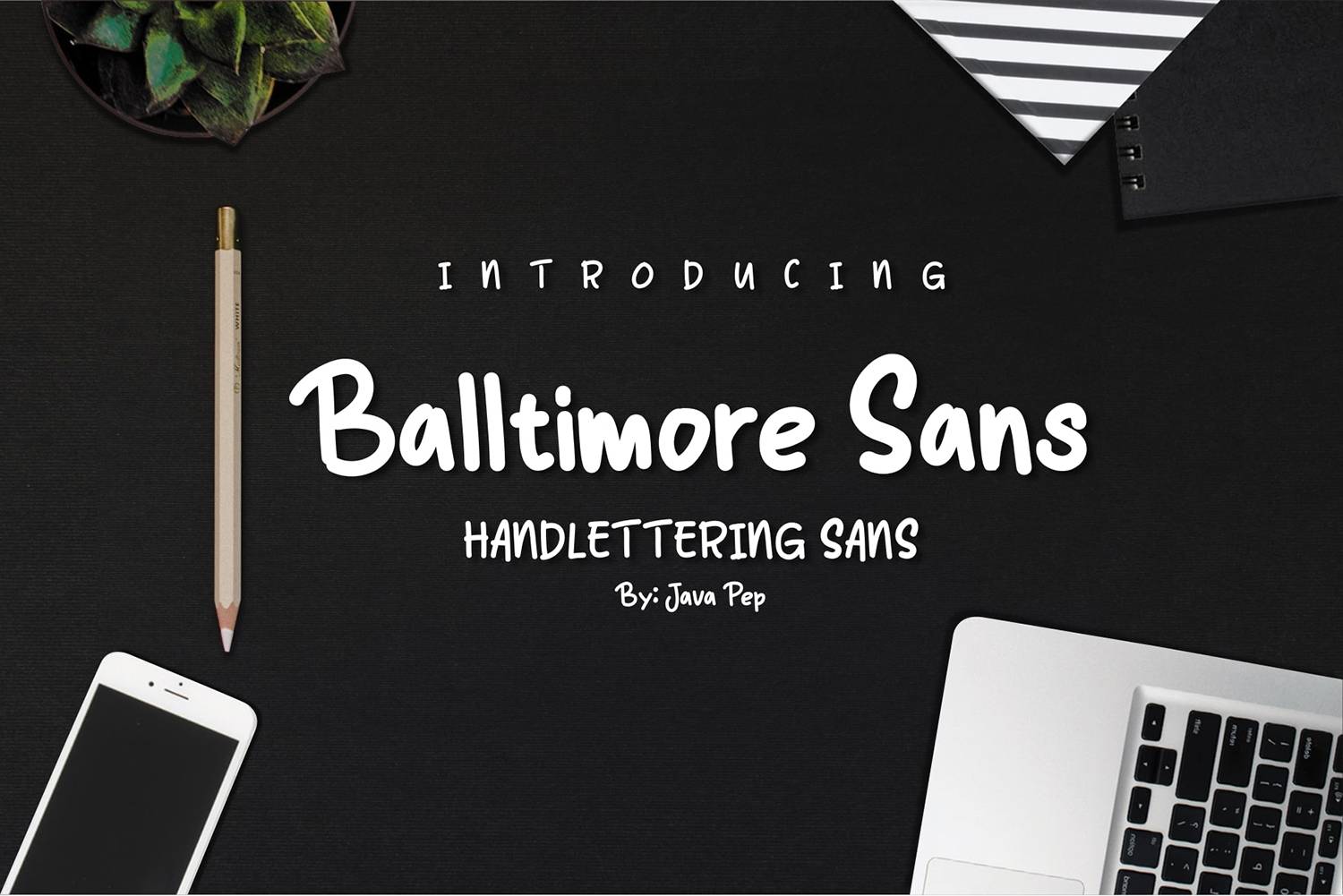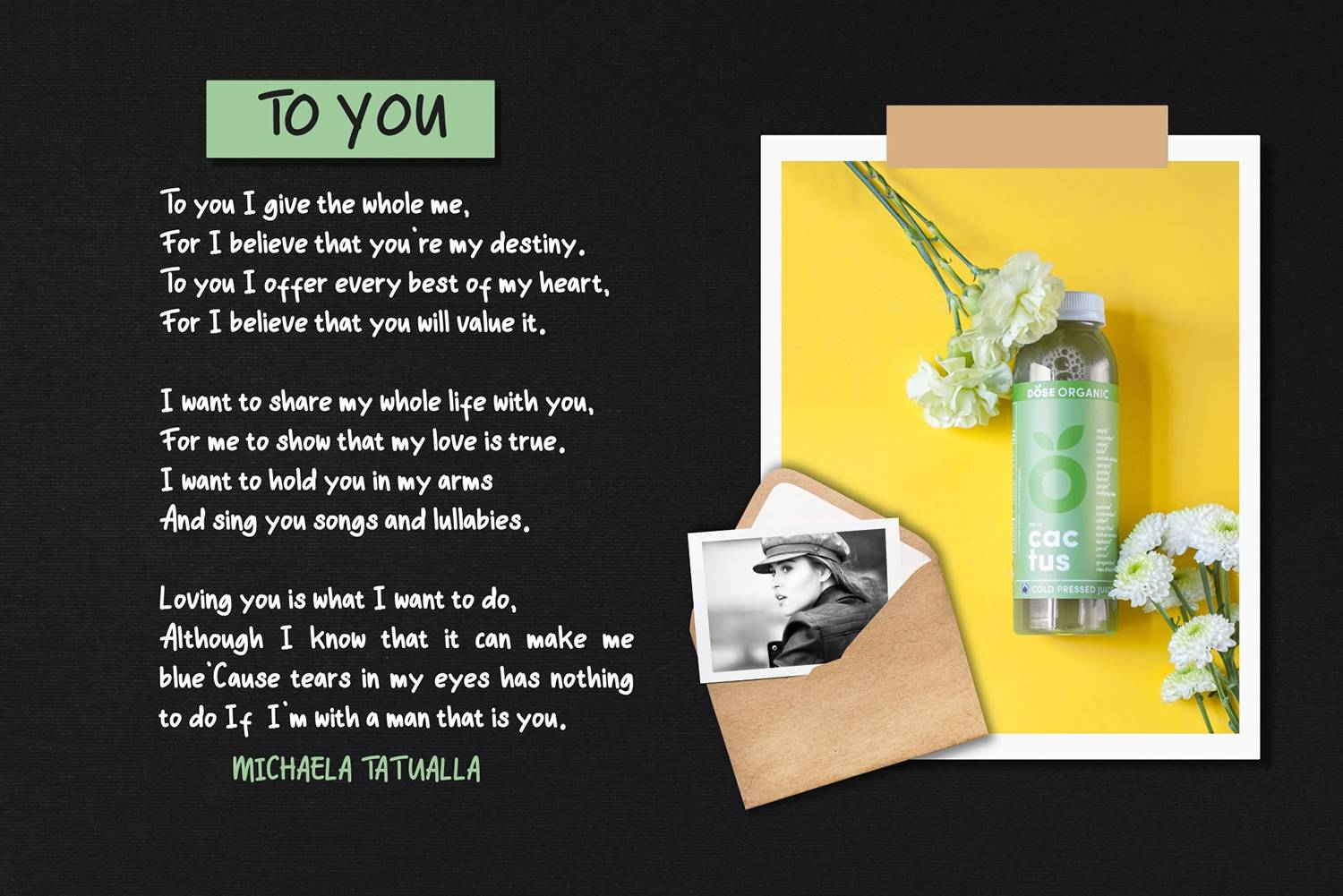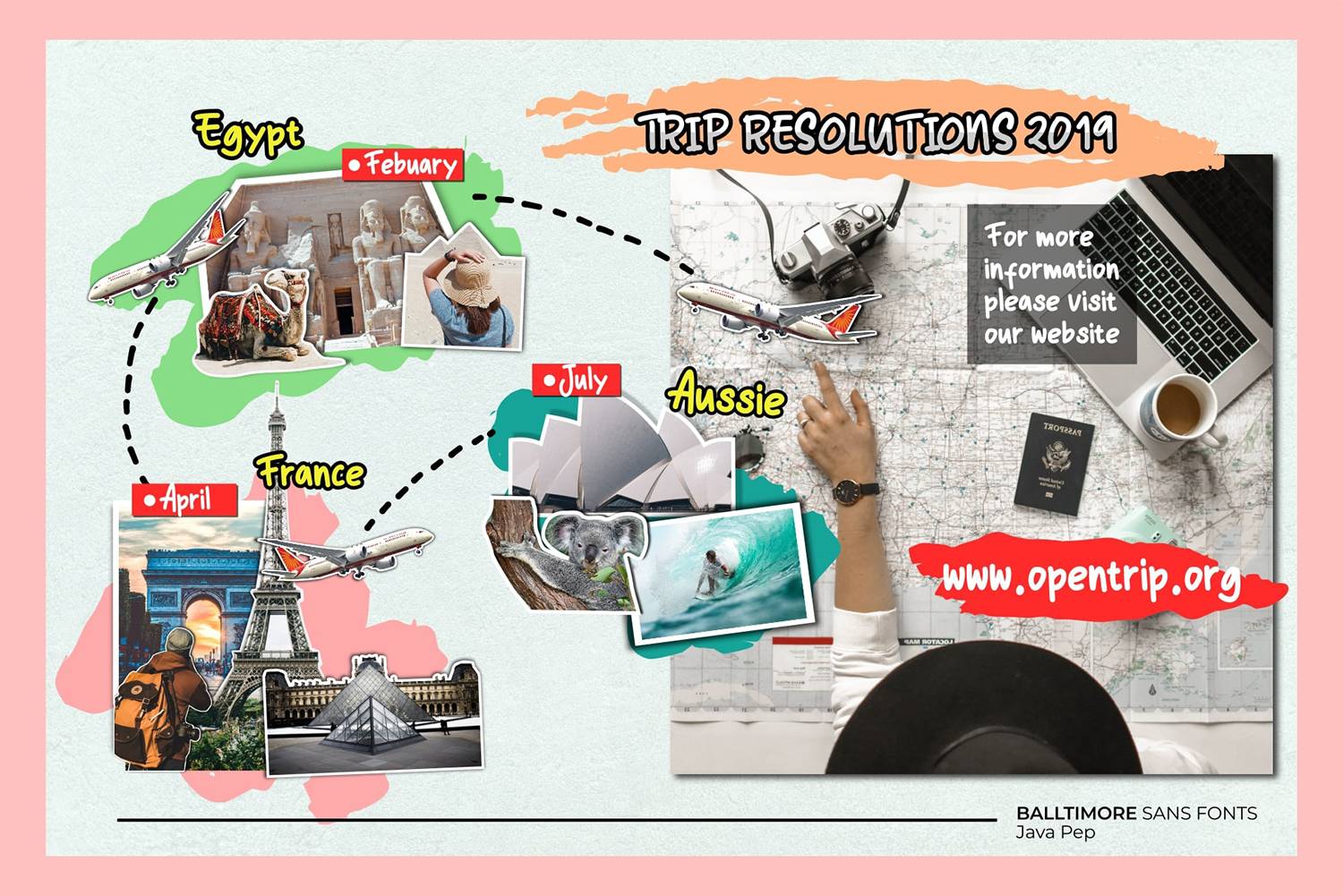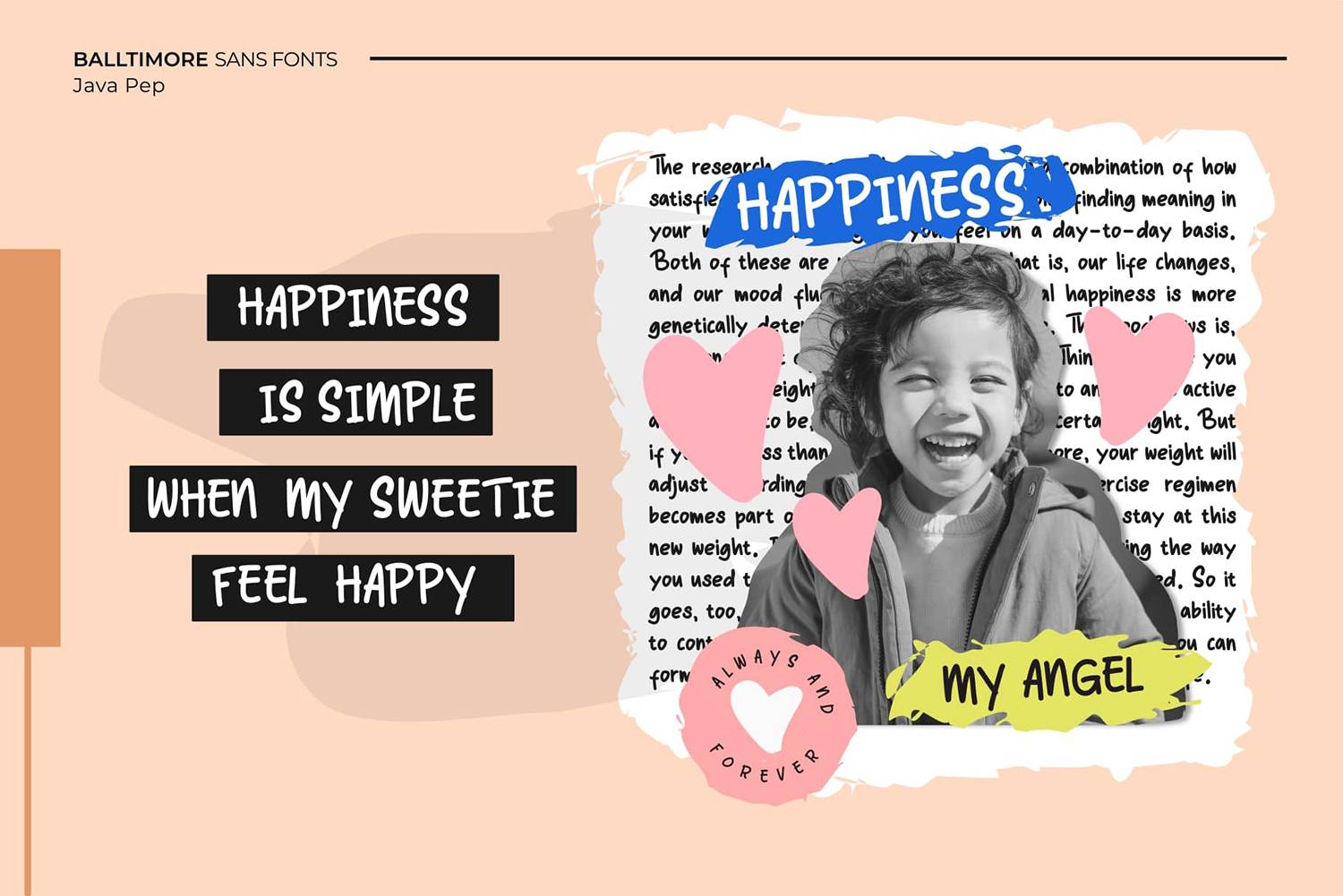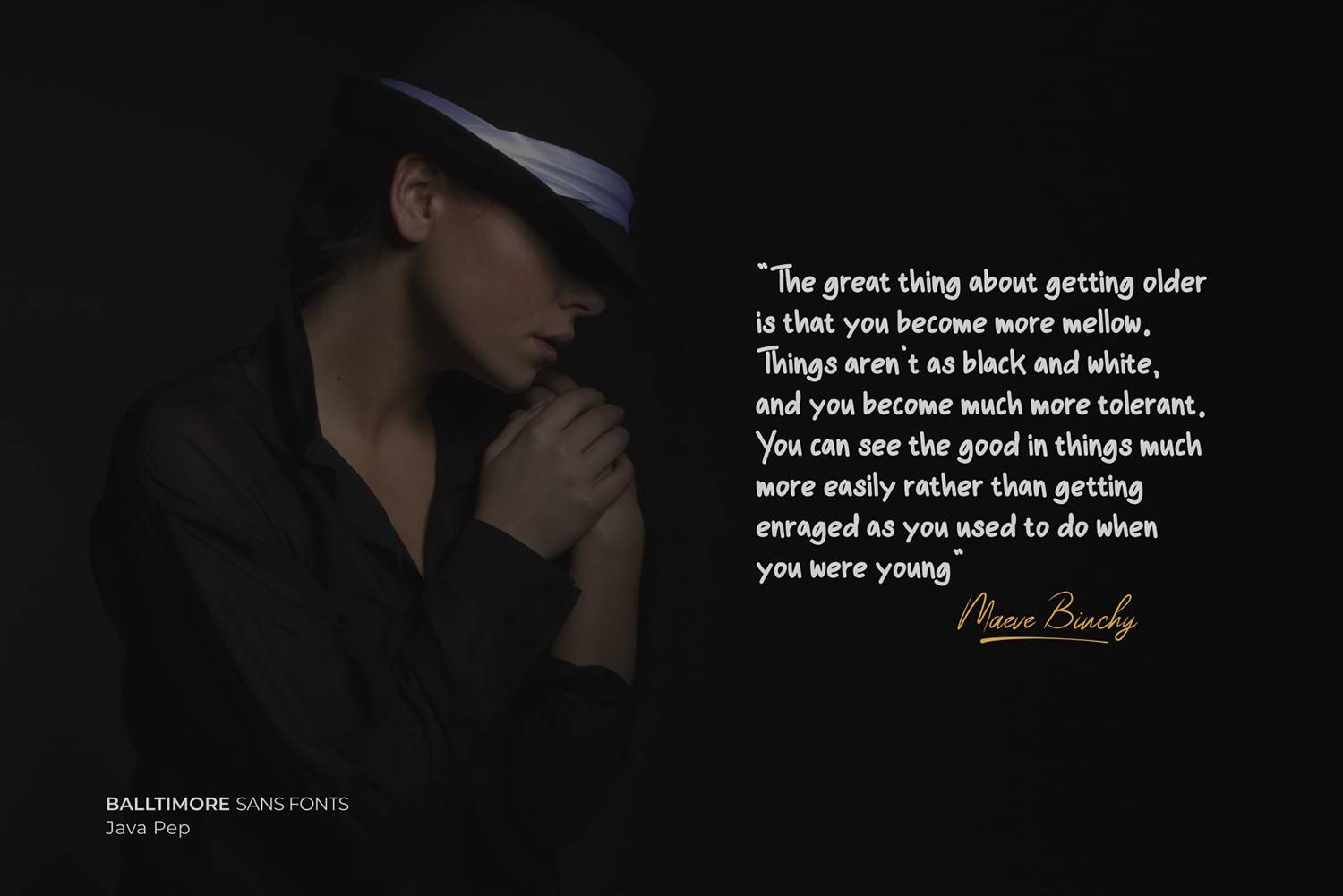
Balltimore is a playful, handwritten sans-serif font with a casual and friendly feel. Its irregular strokes and lively letterforms make it perfect for informal designs, kids' projects, or any creative work that needs a warm, approachable touch. This font shines in headlines, invitations, or branding that seeks a fun, personal vibe.
Balltimore Font
About Balltimore Font